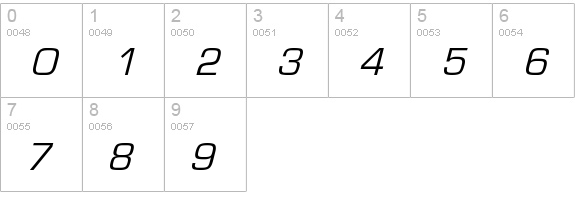
GardenwayObl-Normal Font Details
GardenwayObl-Normal is the standard, neutral variant in the GardenwayObl typeface family \xE2\x80\x94 well suited to general body text, paragraphs, and standard typographic work.
GardenwayObl-Normal font is a stunning display typeface that exudes elegance and sophistication. Its unique oblique design adds a touch of modern flair to any project, making it perfect for a wide range of applications such as branding, packaging, headlines, and more. The clean lines and balanced proportions of GardenwayObl-Normal make it a versatile choice for both print and digital designs. The best part? GardenwayObl-Normal is available for free download at FontsMarket.com. Don't miss out on this opportunity to enhance your projects with a beautiful and impactful font that will surely make a statement. Download GardenwayObl-Normal today and take your designs to the next level!